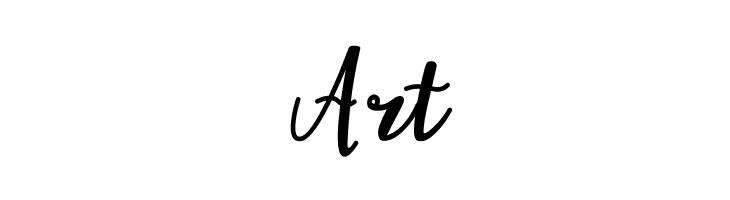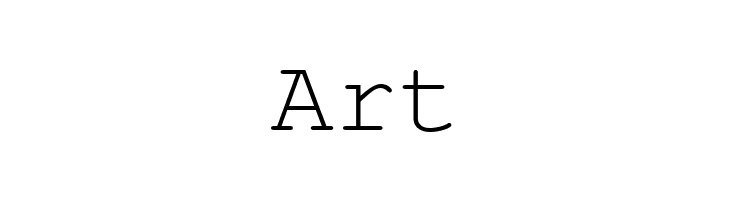
A flowing, cursive font with elegant loops and flourishes.
A monospaced font with uniform character width and minimal stroke contrast, ideal for coding.
A bold, monospaced font with uniform stroke width and rounded edges, ideal for technical use.
A bold, oblique, monospaced font with a modern and clean design.
A monospaced, oblique font with consistent stroke weight and clear readability.
A bold, modern sans-serif font with clean lines and uniform width.
A bold, oblique font with a modern and dynamic style.